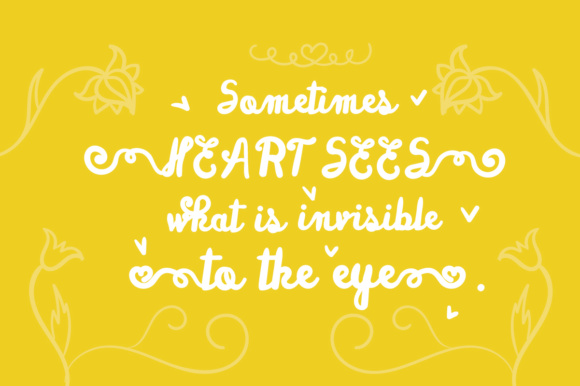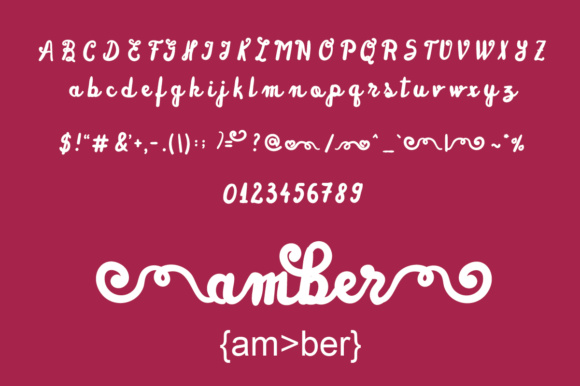
Lovely Day Font
About Lovely Day Font
Lovely Day is a fat, handwritten script that comes with fun additional swashes. Its childish look will give your design a fun and playful feel.